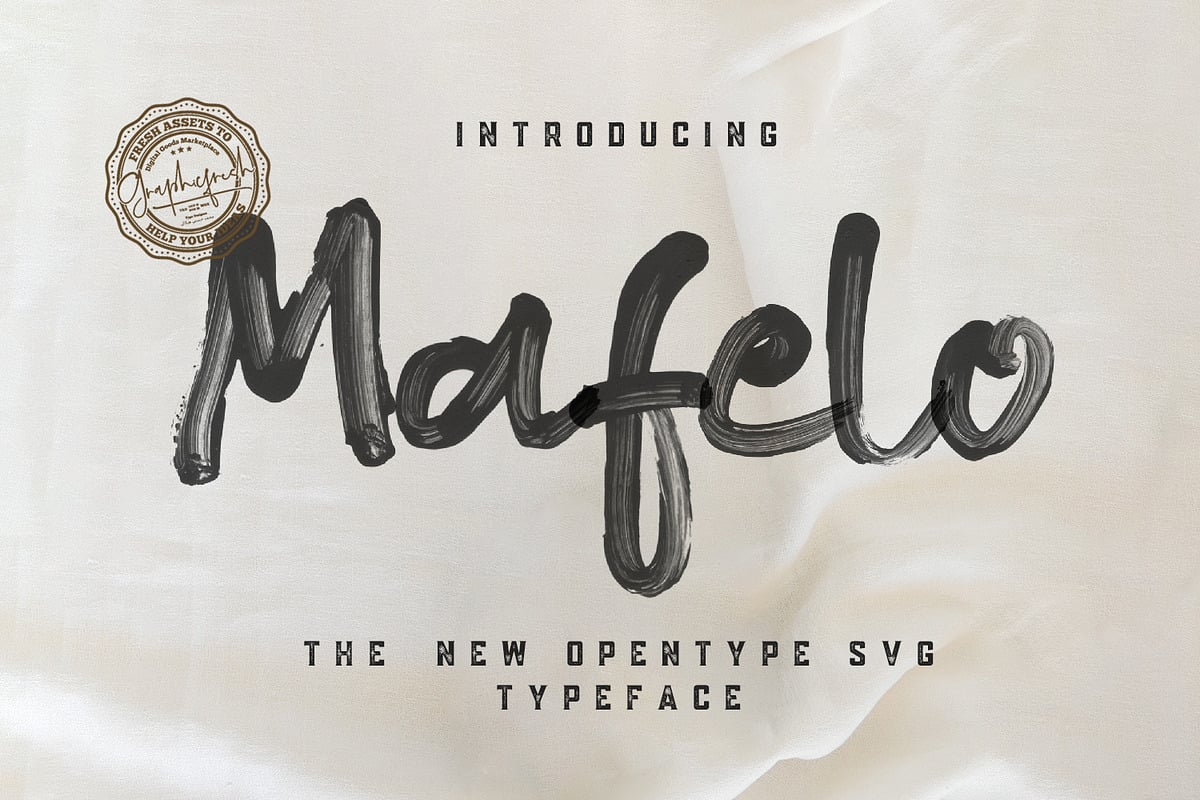
Mafelo SVG Font
A raw, expressive brush font that turns painted strokes into stunning, feminine typography.
Mafelo SVG Font captures the unpredictable beauty of paint streaks with a deliberately feminine edge. Each letterform feels alive — bold, gestural, and impossible to ignore. Whether you're designing posters, packaging, advertisements, headlines, branding, or signboards, Mafelo delivers a powerful urban look and feel.